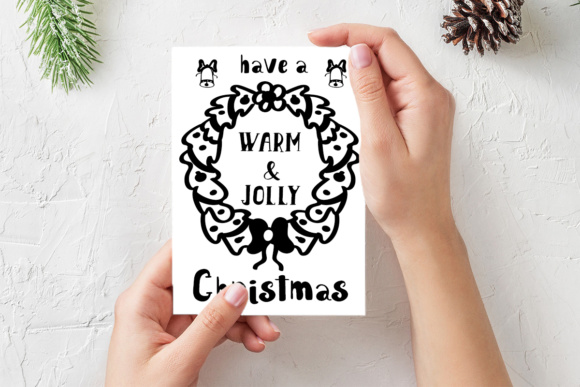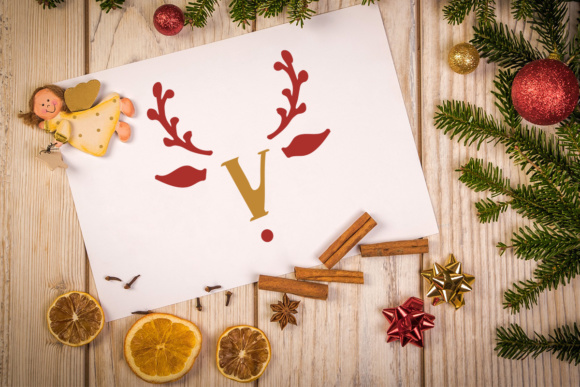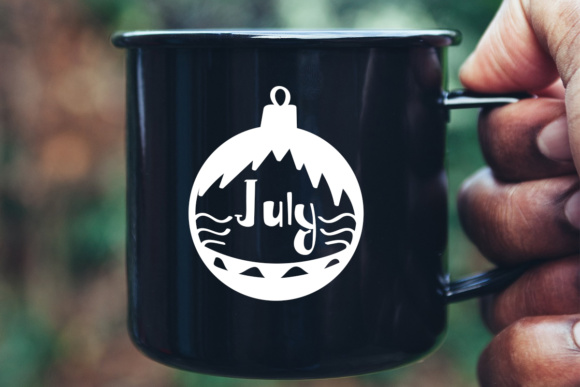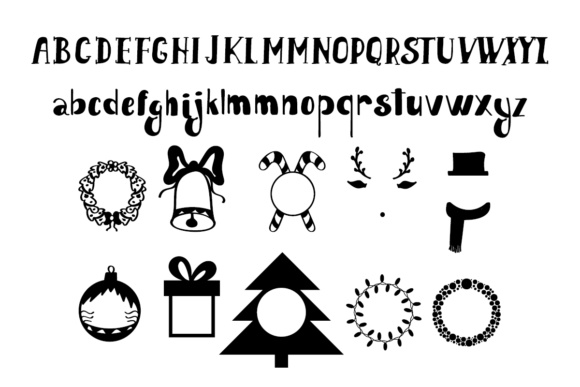
Holly Jolly Font
About Holly Jolly Font
Holly Jolly is a Christmas themed monogram font.
The numerals are replaced with fitting Christmas themed monogram frames.